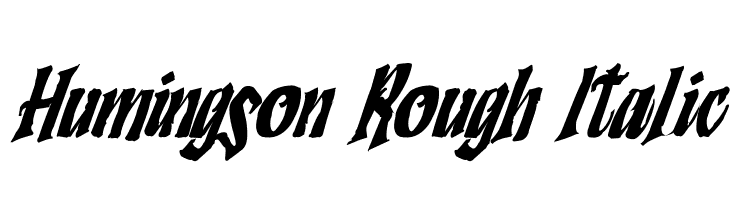
A bold, rough, and italicized font with a dynamic and textured style.
A bold, rough, and tilted font with a hand-drawn, artistic style.
A bold, tilted font with a dynamic and gothic-inspired style.
A bold, dynamic script font with sharp, angular strokes.